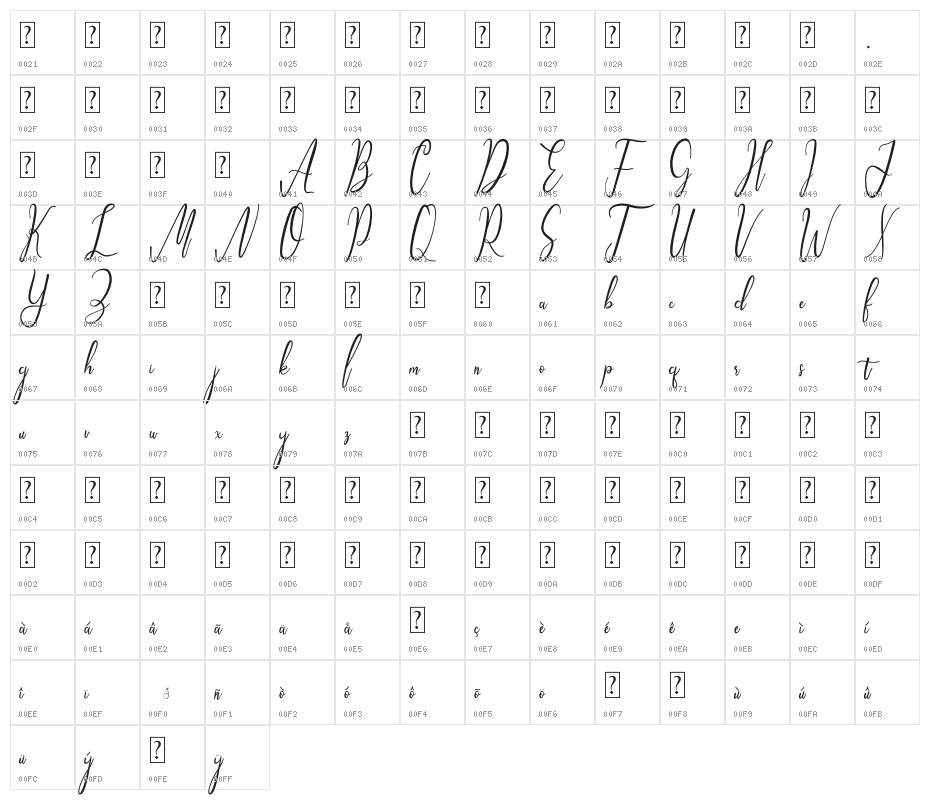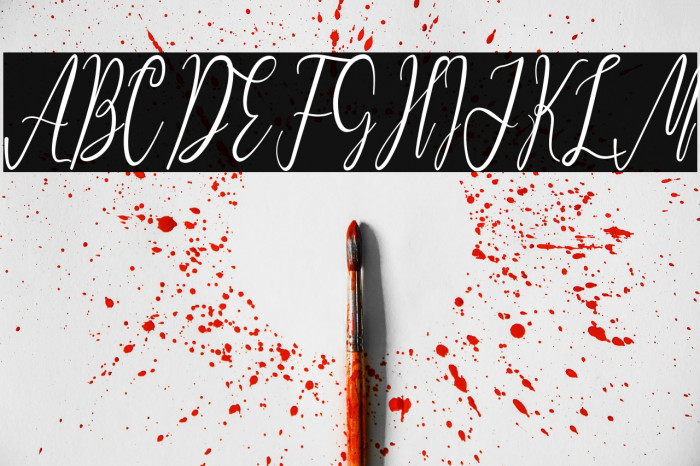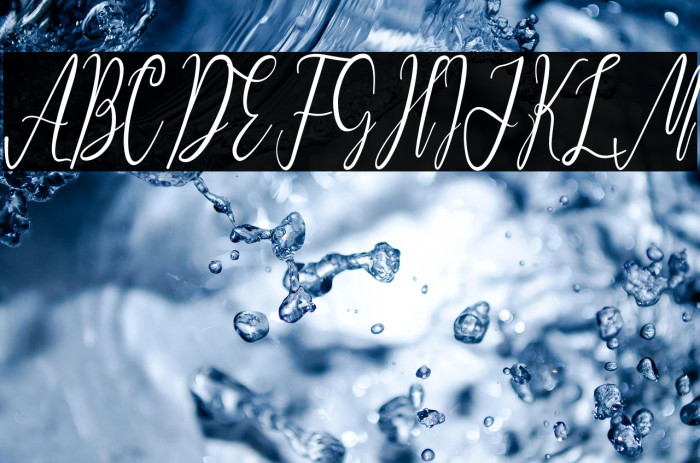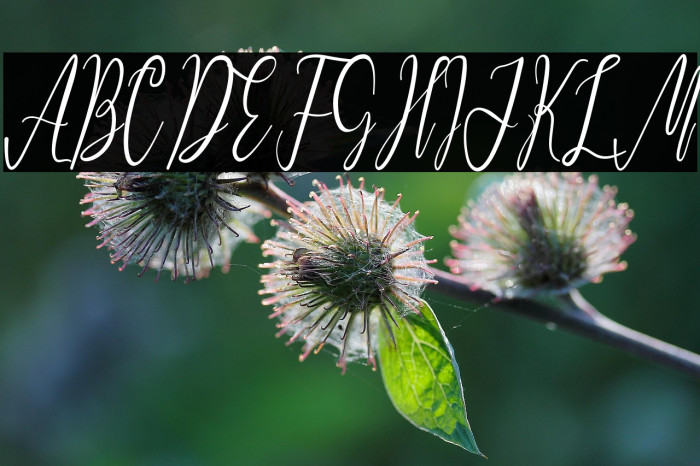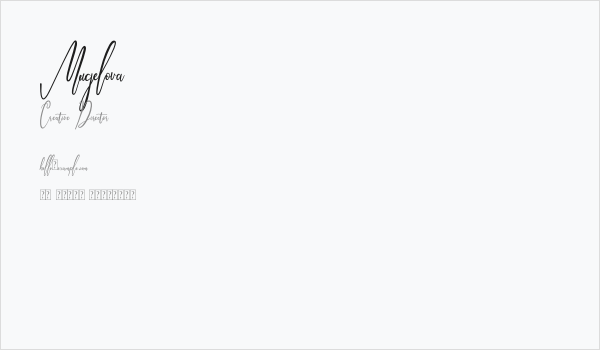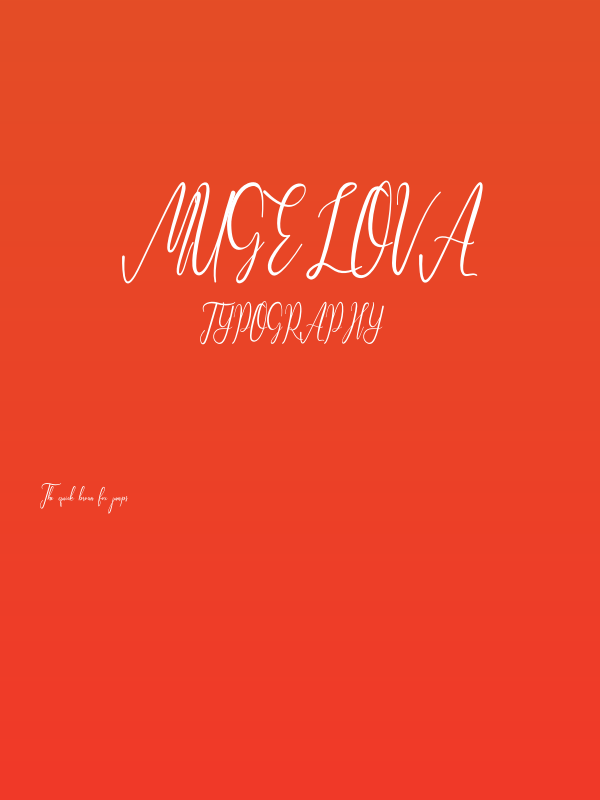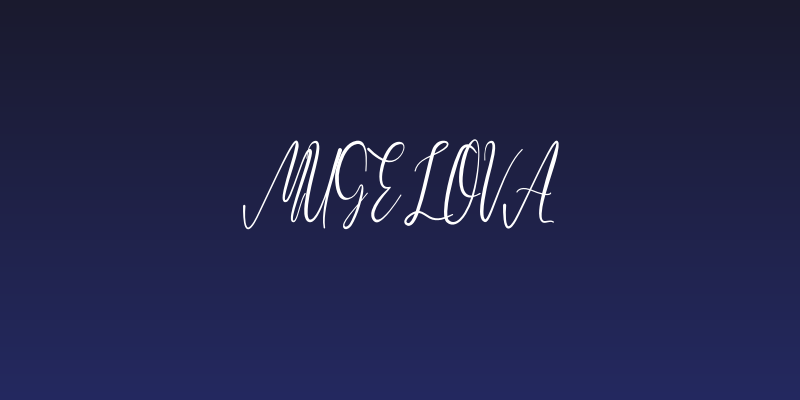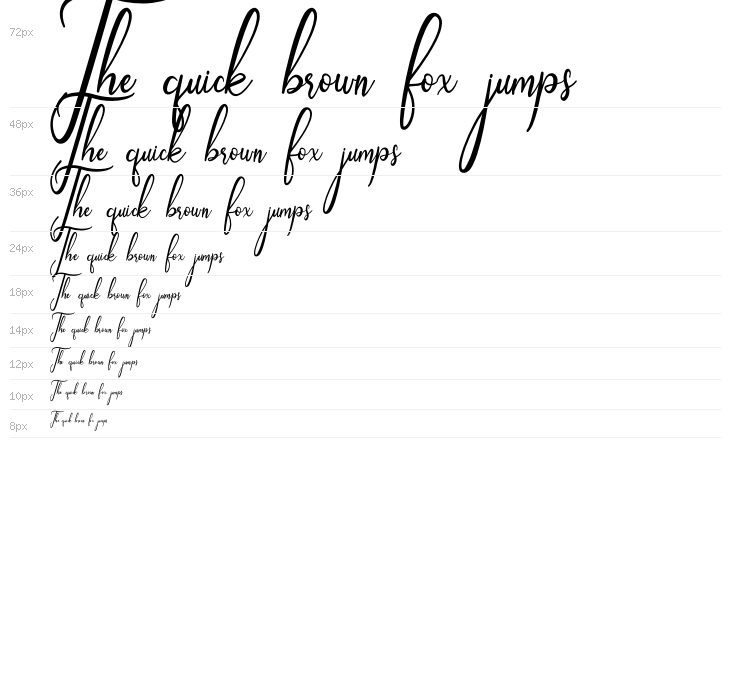
Mugelova Font
Mugelova Description
This font exhibits a flowing, elegant script style with a modern flair. The uppercase letters are tall and slender, featuring graceful curves and loops that give a sense of fluidity and movement. The lowercase letters maintain a consistent style, with smooth connections and a slightly more compact form. The overall design is sophisticated and stylish, making it suitable for formal invitations, branding, and decorative purposes. The font's unique character is enhanced by its delicate strokes and artistic flair, offering a touch of elegance to any project.